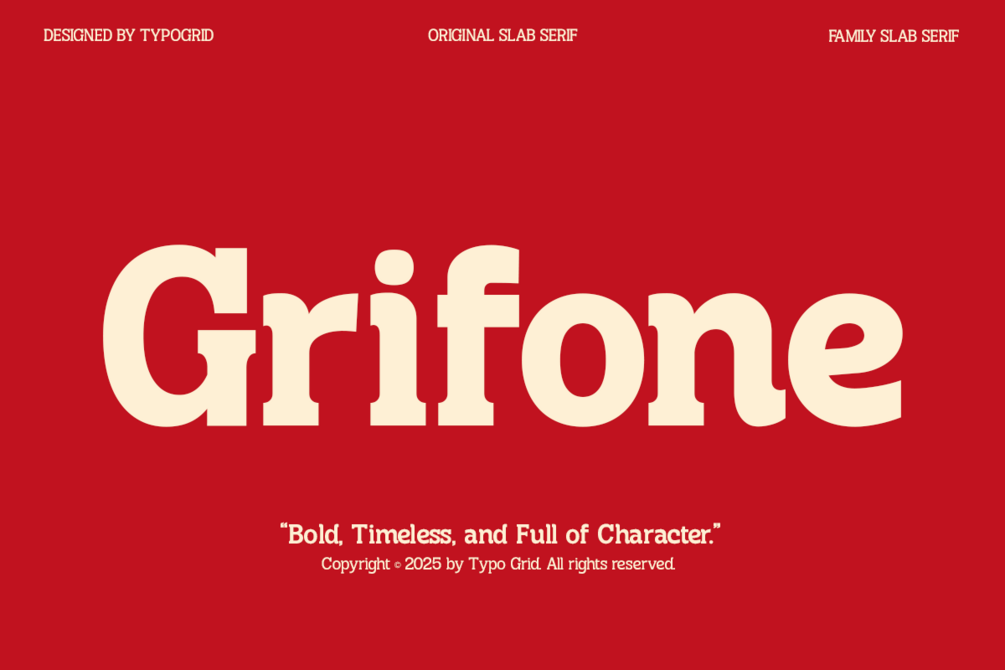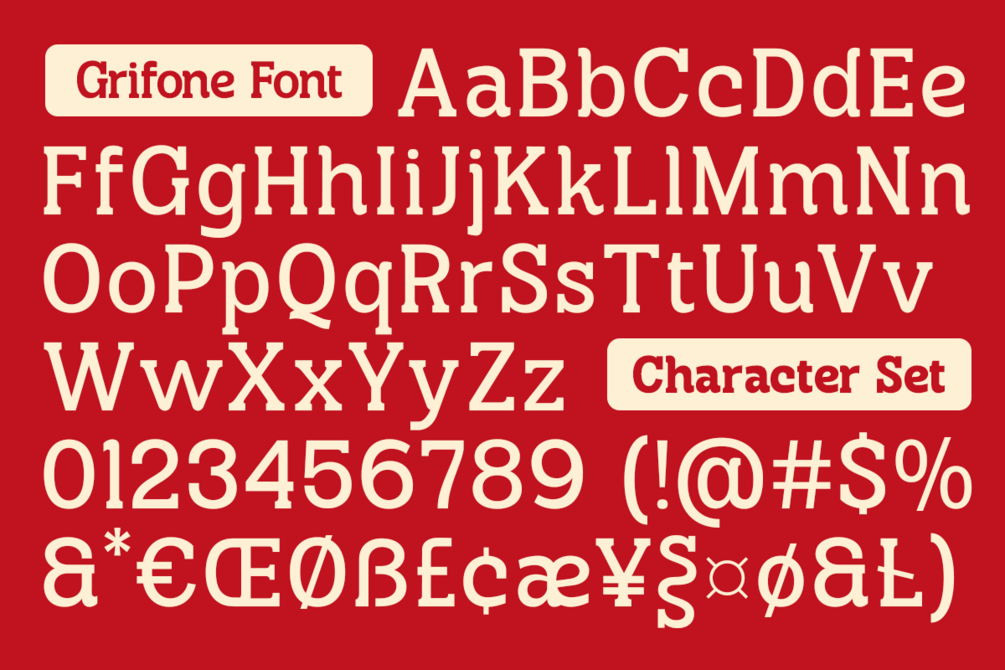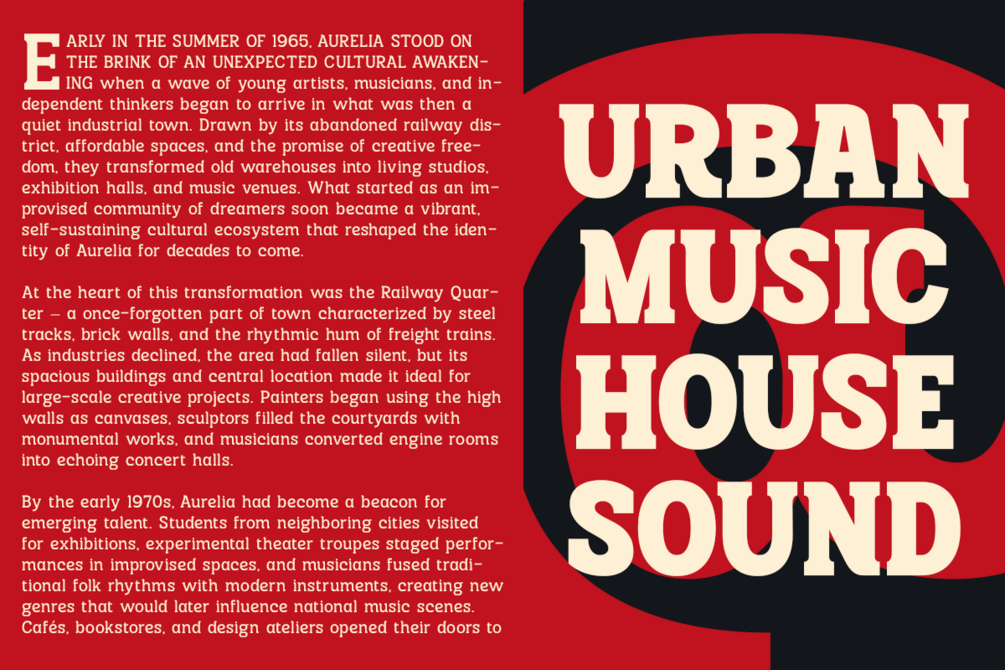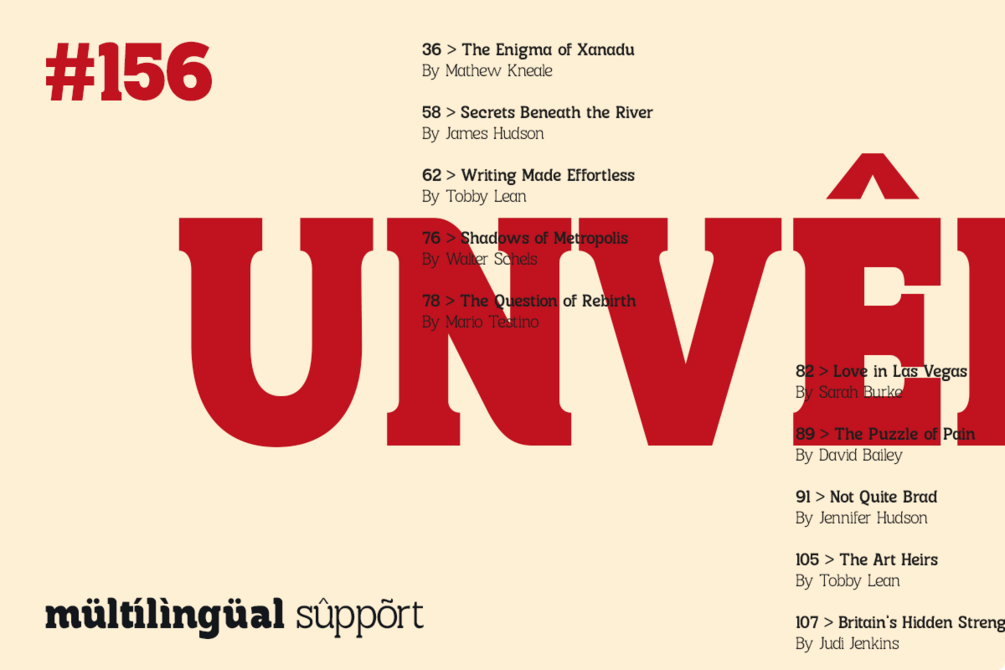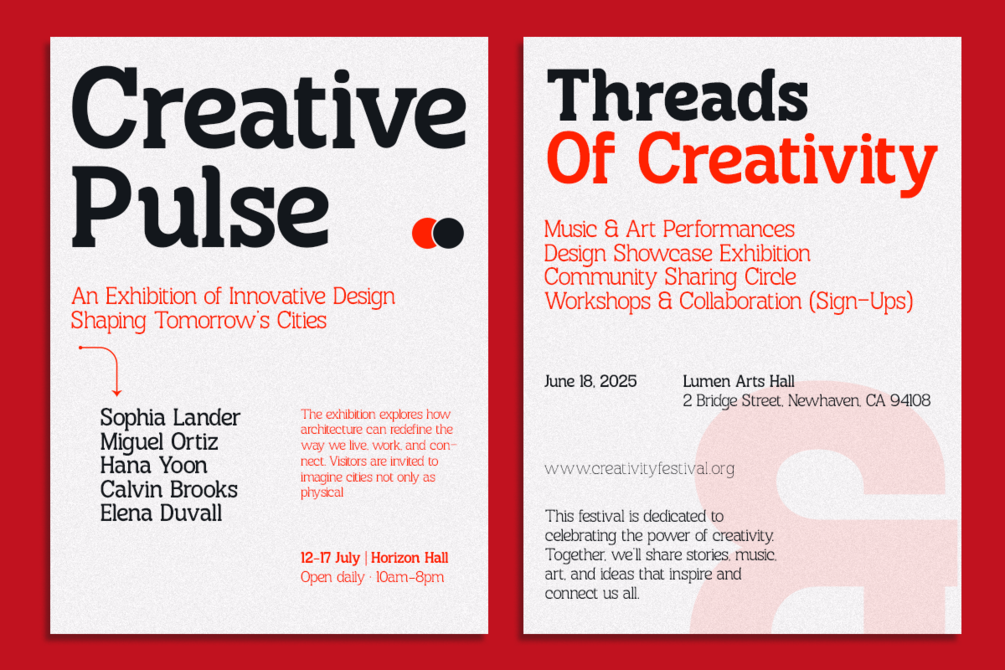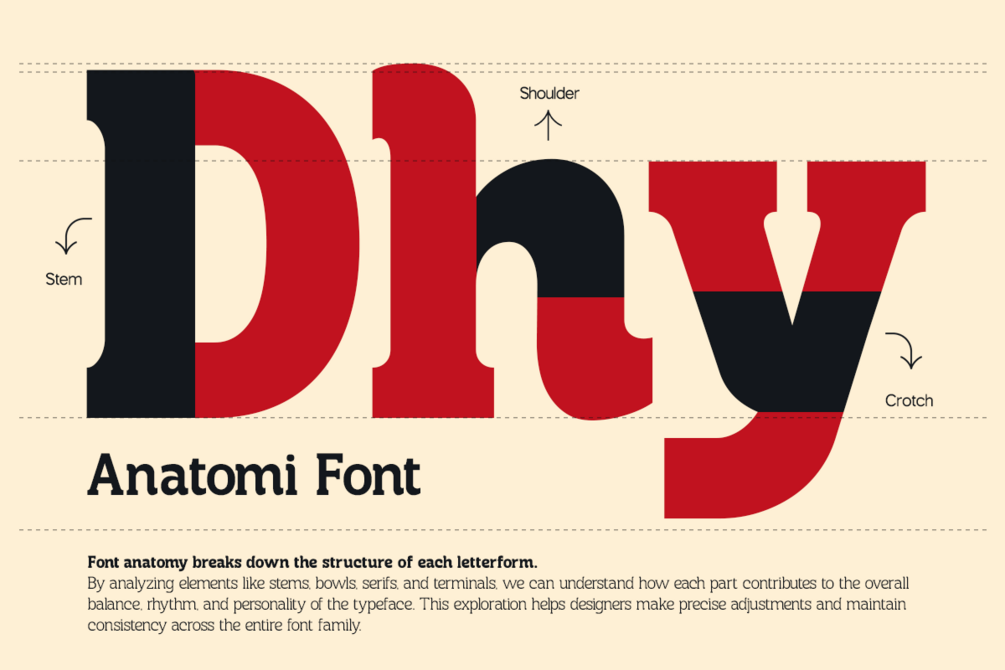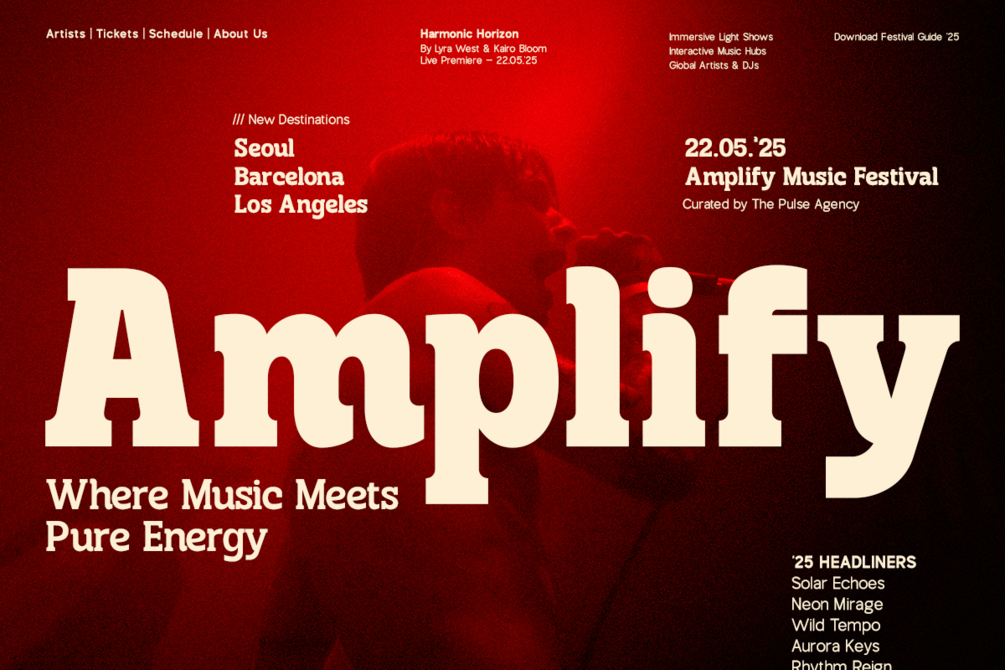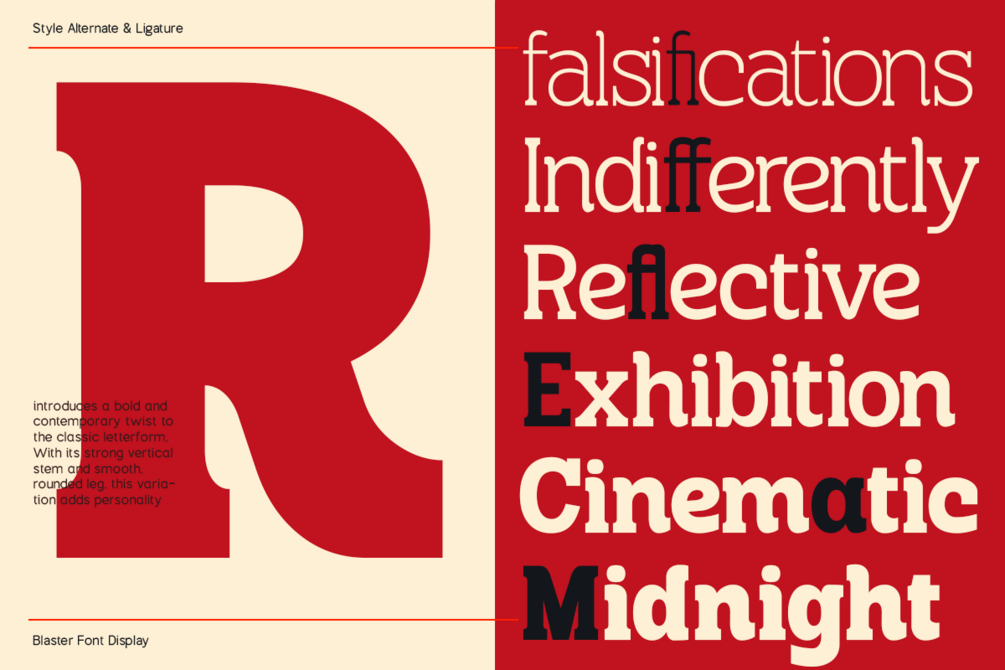
TG Grifone – Elegant slab serif
TG Grifone is an elegant slab serif font family crafted to bring boldness, timelessness, and character to your designs. With robust proportions and smooth contrast, it blends classic strength with modern versatility, making it perfect for editorial layouts, branding systems, book covers, packaging, and digital platforms.
Designed for clarity and impact, TG Grifone works gracefully across both display and text sizes, offering a strong yet approachable typographic voice. Its calm personality and carefully refined details balance structure with softness, ideal for projects requiring a confident and distinctive presence.
Whether you are designing a luxury brand, a high-end magazine, or a professional presentation, TG Grifone delivers clarity, charm, and poise to elevate your visual storytelling. At Typo Grid, we create fonts that feel honest, warm, and full of character—helping your words speak boldly and beautifully. Ready to get started? Explore our collection and discover the type that fits your vision.